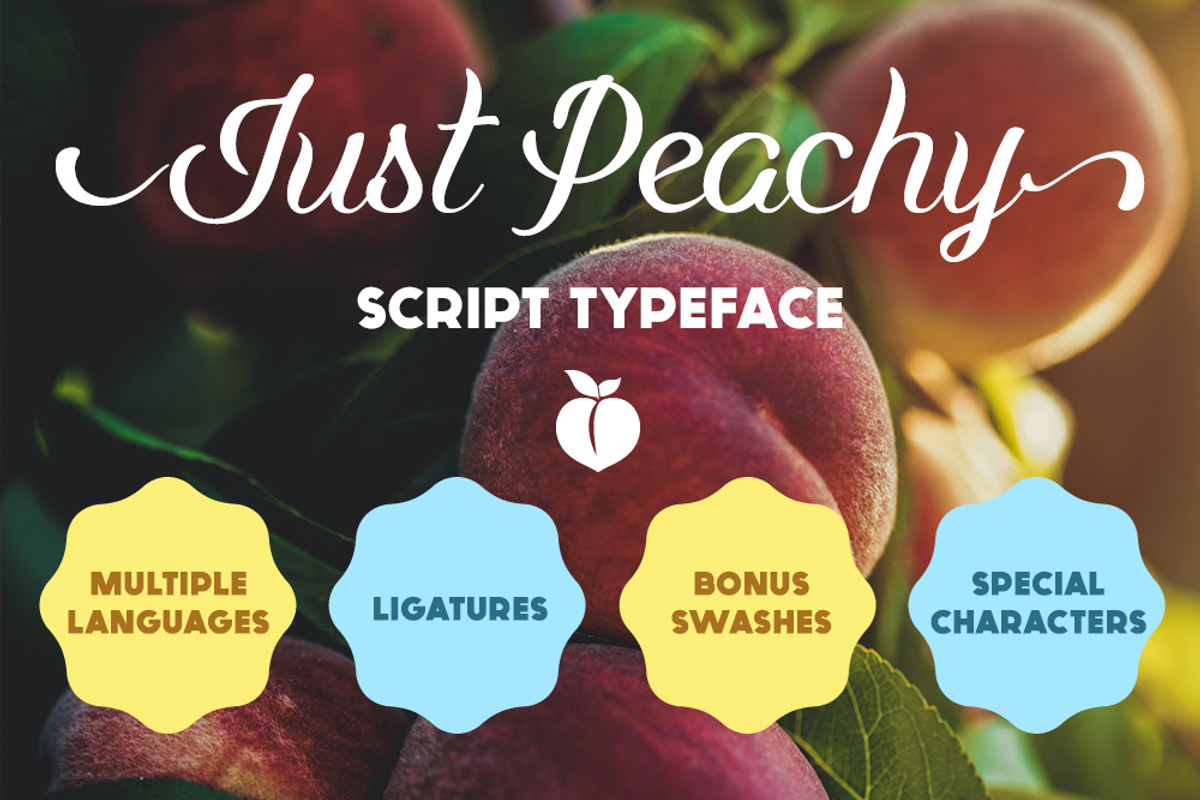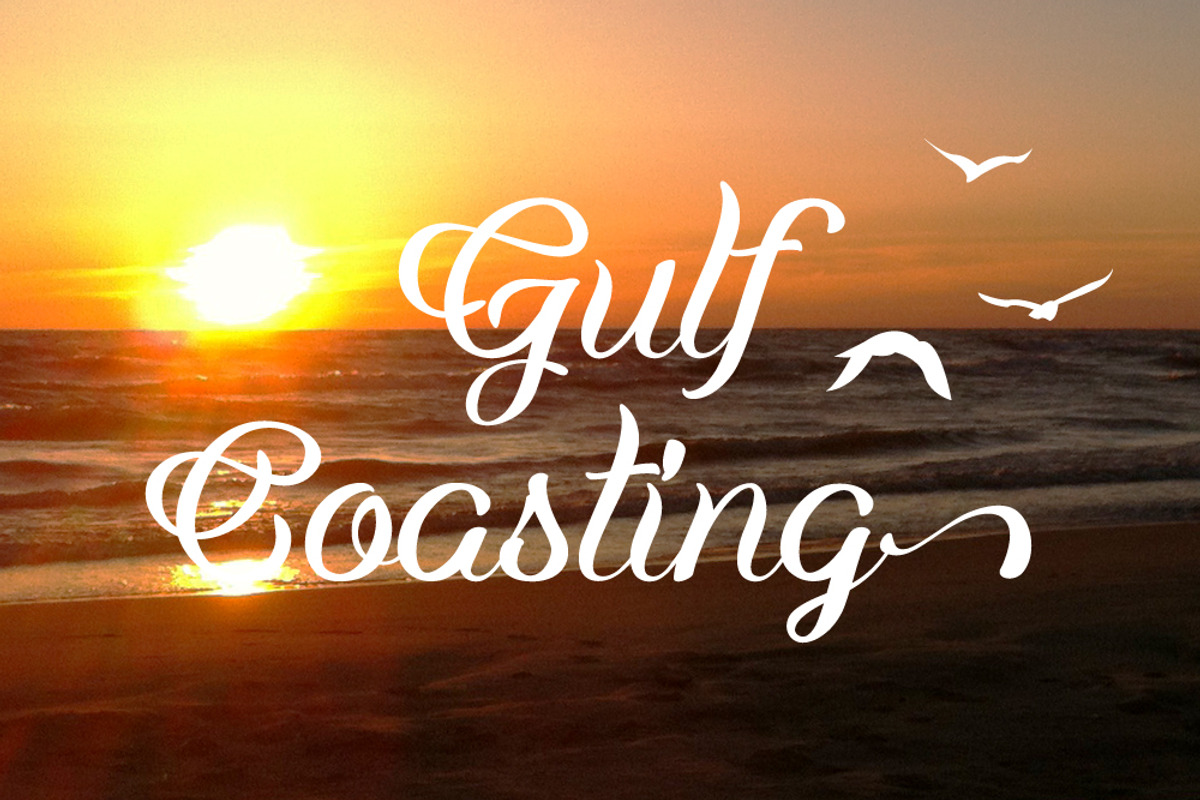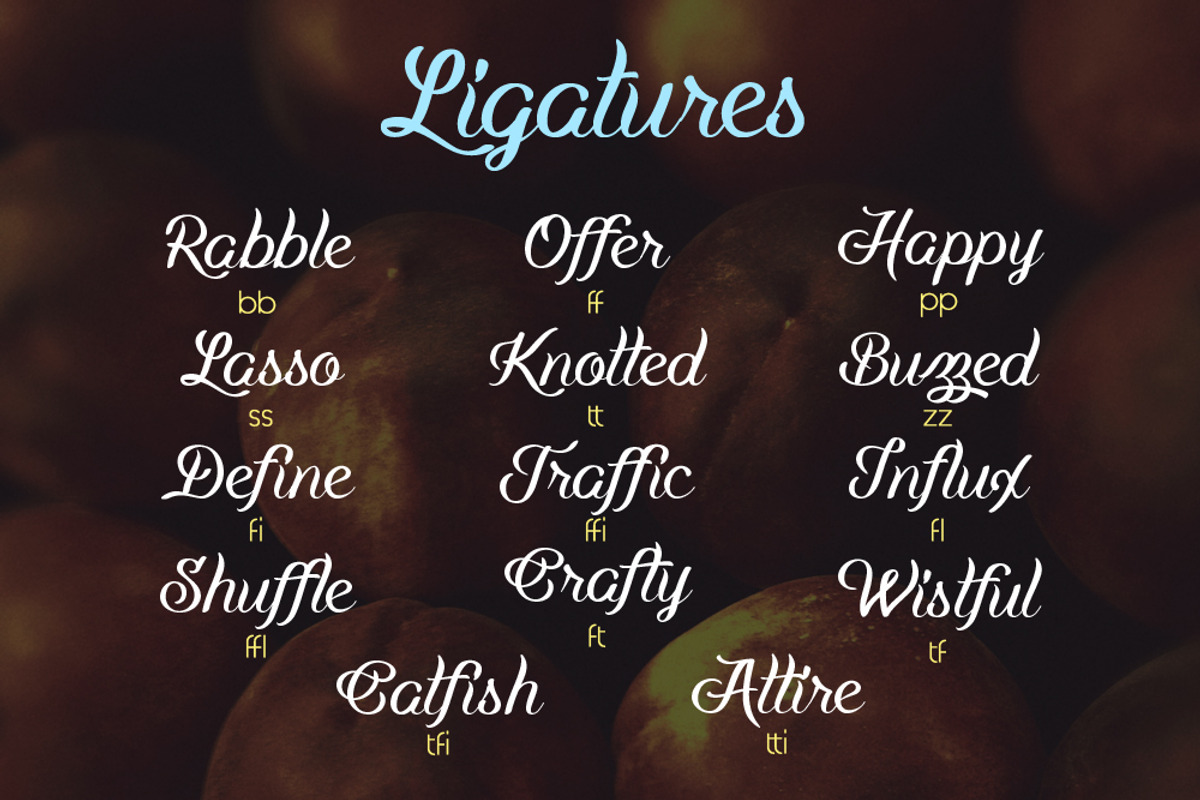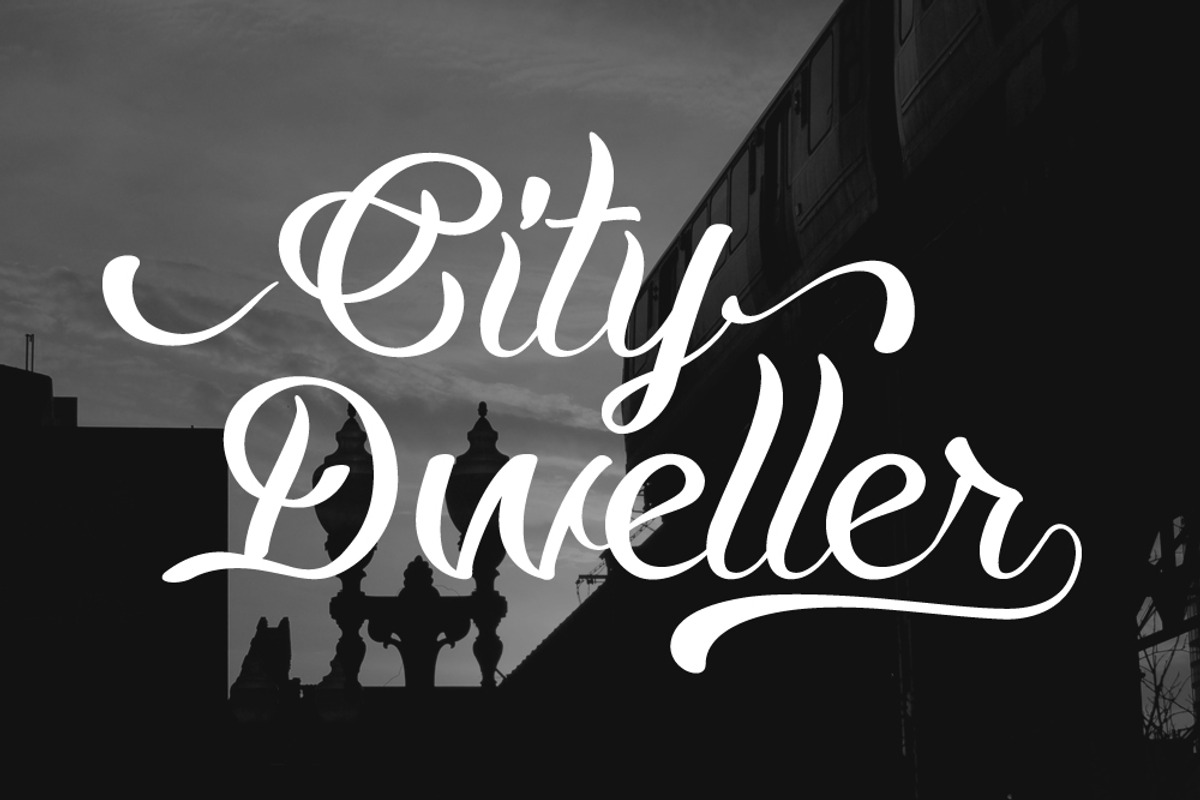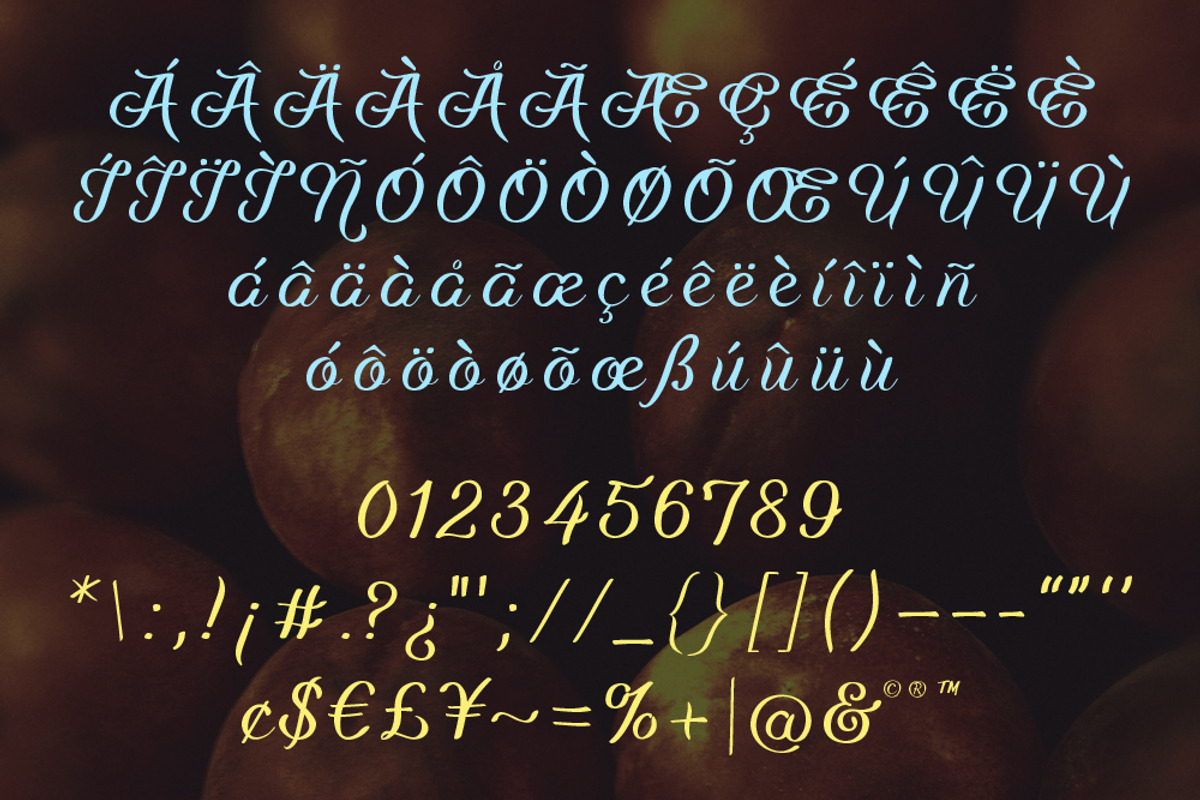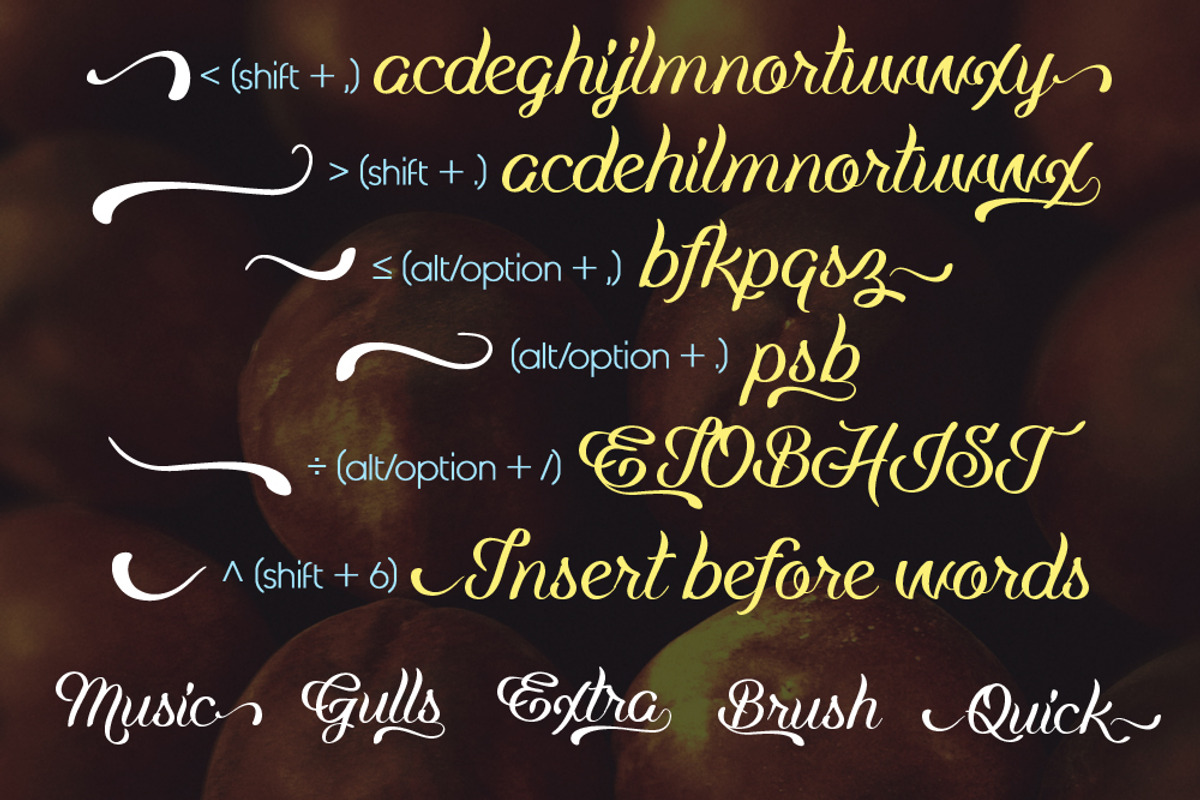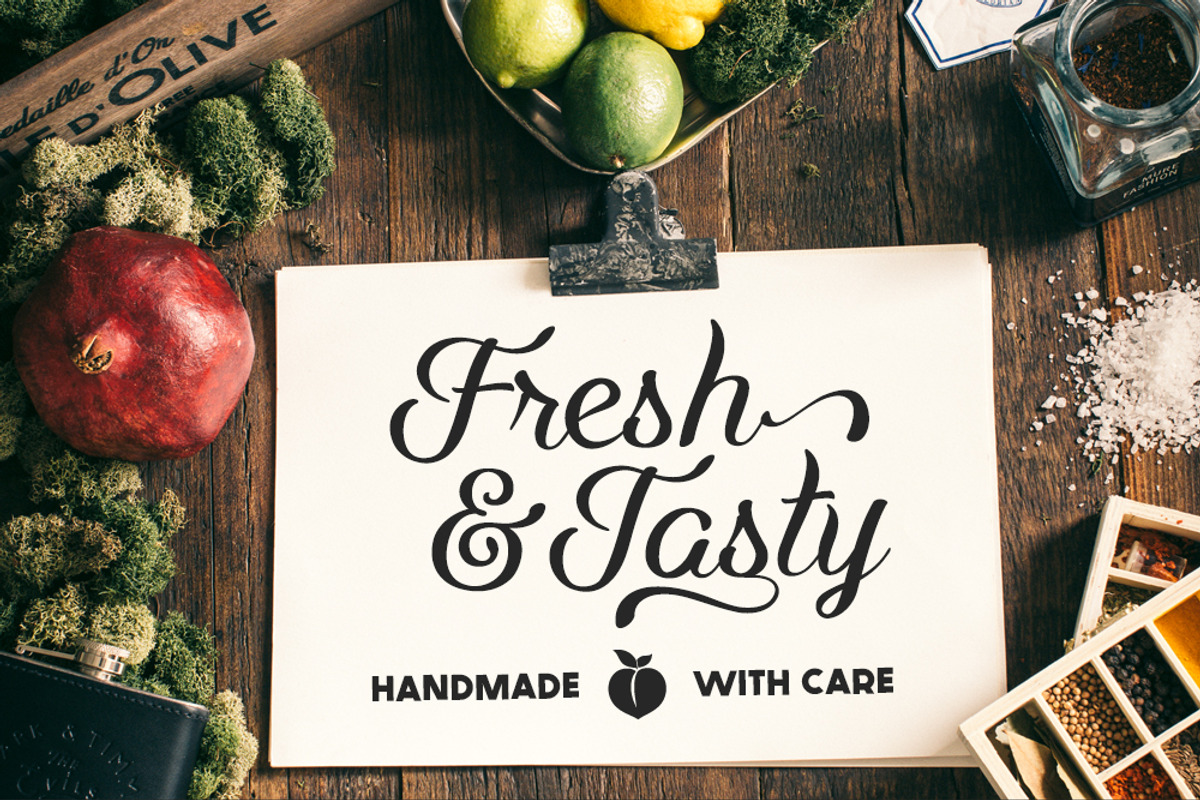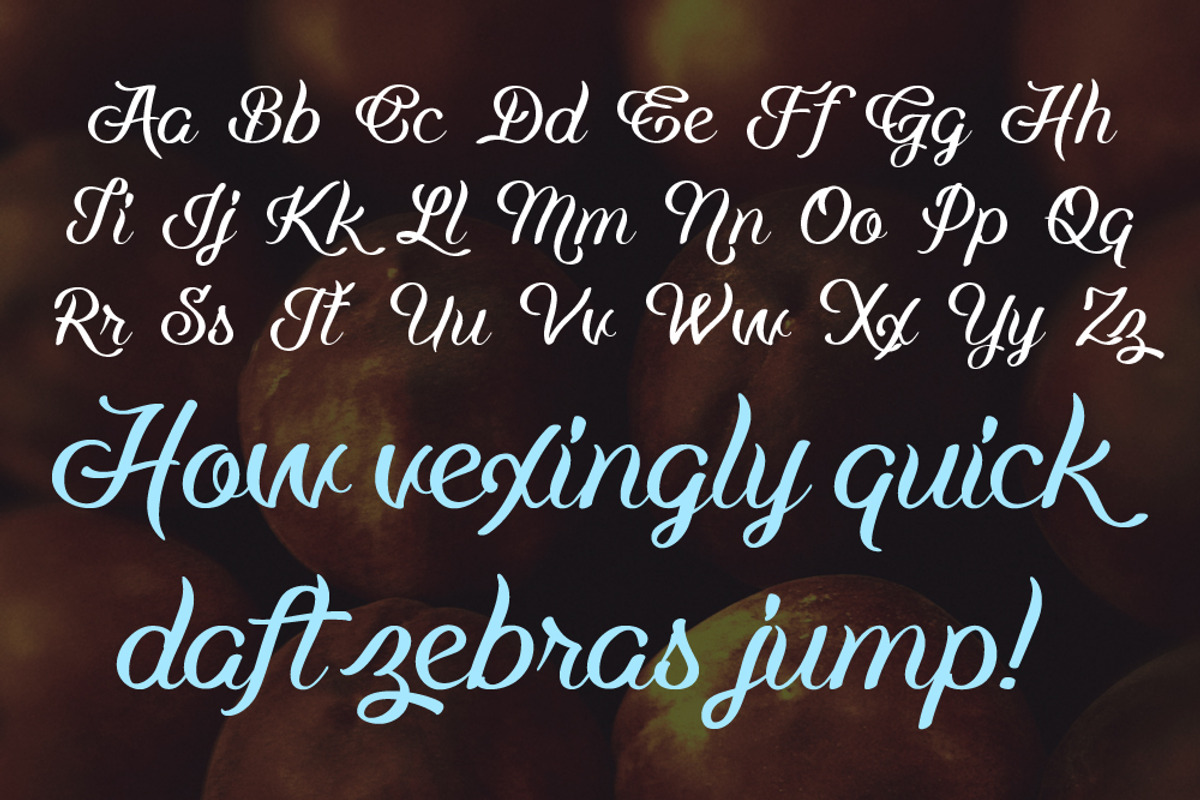
Just Peachy Script Typeface
Just Peachy Script Typeface by graphiklee is a font selected for branding, posters, packaging, typography.
- Included are six swashes that can be used and manipulated as the designer wishes.
- Just Peachy uses OpenType ligatures to avoid messy letter combinations and create a smoother look.
- Just Peachy supports a number of languages that use the Latin alphabet by including a wide range of accents and diacritics.
Why Just Peachy Script Typeface is worth a look
Just Peachy Script Typeface by graphiklee fits naturally into Branding, posters, packaging, typography.